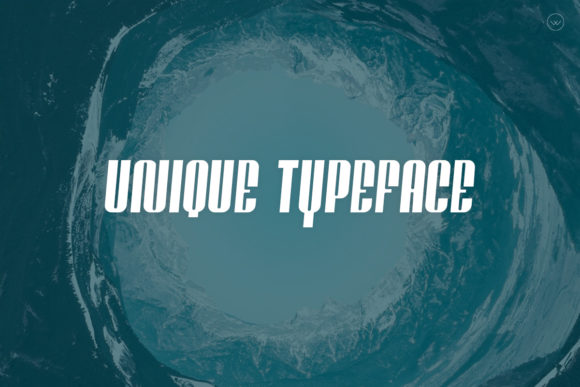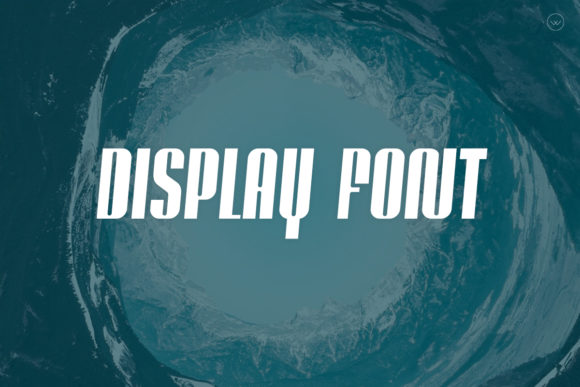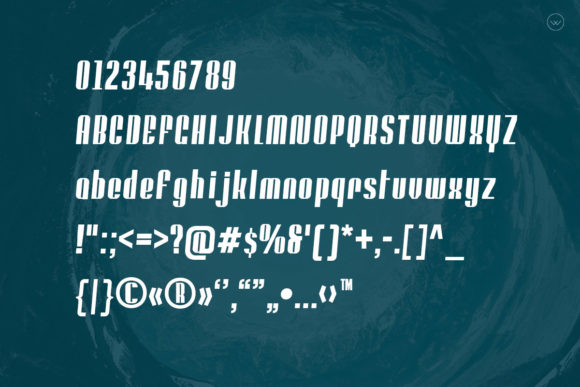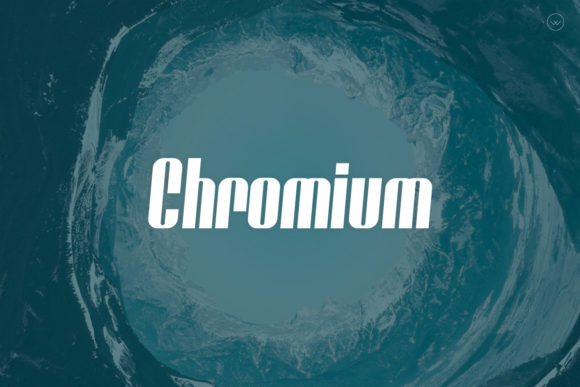
Introducing Chromium Font: Elevate Your Designs with a Modern Display Font
In the world of typography, a font can make or break a design. It’s the perfect blend of style, elegance, and readability that can elevate a creation from ordinary to extraordinary. If you’re a designer or crafter looking for a font that can add a touch of modern sophistication to your work, look no further than Chromium Font. In this article, we’ll dive into the world of Chromium Font, exploring its features, benefits, and uses.
What is Chromium Font?
Chromium Font is a neat and modern display font designed to make a statement. Its sleek lines, precise curves, and bold structure make it perfect for headlines, titles, and any other design element that requires attention-grabbing typography. Whether you’re working on a branding project, a website, or a craft project, Chromium Font is an incredibly versatile asset to have in your font library.
Key Features of Chromium Font
- Modern Design: Chromium Font boasts a contemporary design that’s perfect for designers and crafters who want to add a touch of sophistication to their work.
- High Readability: Despite its bold structure, Chromium Font is highly readable, making it suitable for use in a variety of applications, from digital media to print materials.
- Versatility: Chromium Font can be used for a wide range of projects, including branding, advertising, web design, and crafting.
- Elegant Lines: The font’s sleek lines and precise curves give it an elegant feel that’s perfect for designs that require a touch of luxury.
Benefits of Using Chromium Font
So, why should you choose Chromium Font for your next project? Here are just a few benefits of using this amazing display font:
- Instant Recognition: Chromium Font’s bold and modern design ensures instant recognition, making it perfect for headlines, titles, and other attention-grabbing elements.
- Professional Look: The font’s sleek lines and elegant curves give it a professional look that’s perfect for businesses, brands, and individuals who want to make a statement.
- Easy to Pair: Chromium Font is easy to pair with other fonts, making it a versatile addition to any font library.
- Wide Range of Applications: From digital media to print materials, Chromium Font can be used in a wide range of applications, making it a valuable asset for designers and crafters.
How to Use Chromium Font
Now that we’ve explored the features and benefits of Chromium Font, let’s take a look at how to use it effectively in your designs:
- Headlines and Titles: Use Chromium Font for headlines and titles to grab attention and make a statement.
- Branding and Advertising: Chromium Font is perfect for branding and advertising projects, where its bold and modern design can help to elevate a brand’s image.
- Web Design: Use Chromium Font for web design projects, such as website headers, titles, and other attention-grabbing elements.
- Crafting and DIY: Chromium Font can also be used in crafting and DIY projects, such as making signs, banners, and other decorative items.
| Font Name | Chromium Font |
| Author | Webhance |
In conclusion, Chromium Font is a modern display font that’s perfect for designers and crafters who want to add a touch of sophistication to their work. Its sleek lines, precise curves, and bold structure make it highly versatile and easy to use in a wide range of applications. Whether you’re working on a branding project, a website, or a craft project, Chromium Font is an incredibly asset to have in your font library. So why wait? Download Chromium Font today and elevate your designs to the next level!